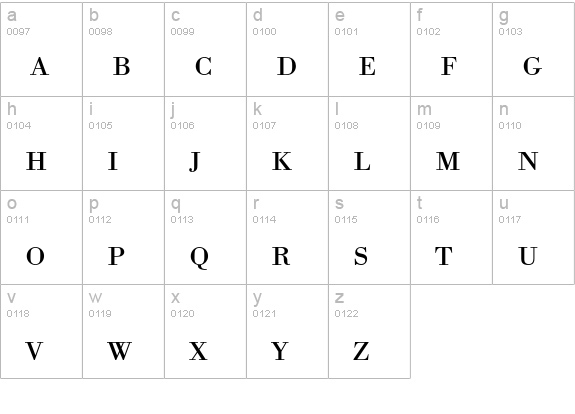
Bodoni BE Light Expert Font Details
Bodoni BE Light Expert is a refined, elegant variant in the Bodoni typeface family \xE2\x80\x94 well suited to elegant body text, refined sub-headings, and luxury branding.
Bodoni BE Light Expert font is a timeless and elegant typeface that exudes sophistication and class. Its delicate and refined letterforms make it perfect for creating elegant designs and conveying a sense of luxury. The font's high contrast between thick and thin strokes gives it a modern and stylish look that is sure to make your projects stand out. What's even better is that Bodoni BE Light Expert font is available for free download at FontsMarket.com. Whether you're working on a branding project, wedding invitations, or any other design that requires a touch of elegance, this font is the perfect choice. With its clean lines and classic appeal, Bodoni BE Light Expert font is a versatile typeface that will elevate any design to the next level. Download it now and add a touch of sophistication to your projects.